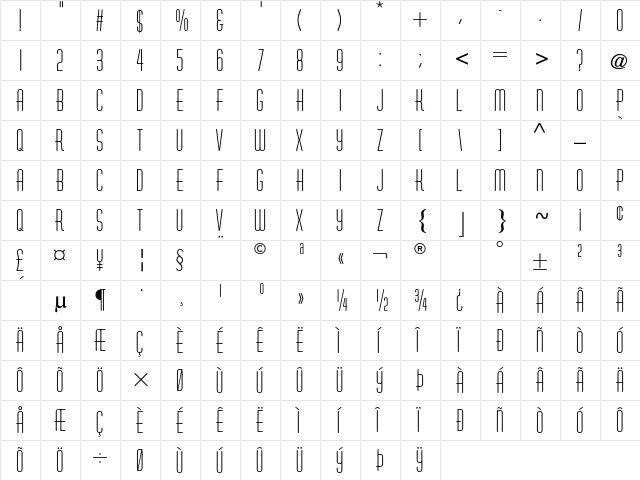
ATAldousVertical Regular
Design Context for ATAldousVertical Typeface
ATAldousVertical offers clean, dependable letterforms without strong stylistic allegiance, making it a practical choice for designers who need flexibility.
Pro Tip: Use ATAldousVertical in both headline and body roles to test its range before committing to a single application.